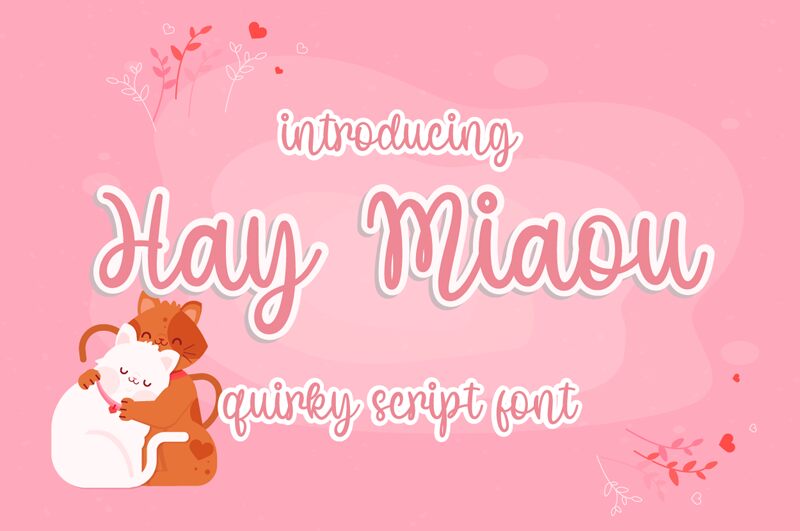
Haymiaou Demo
Looking for a font that will add a touch of whimsy to your design projects? Look no further than Haymiaou, the latest creation from Letter Art Studio. This semi-light, cute handwritten font is perfect for a wide variety of projects, from children's books and greeting cards to social media graphics and website headers. With its playful yet legible style, Haymiaou is sure to capture the attention of your audience and help make your message stand out. So why not give this delightful typeface a try? Your designs will thank you!